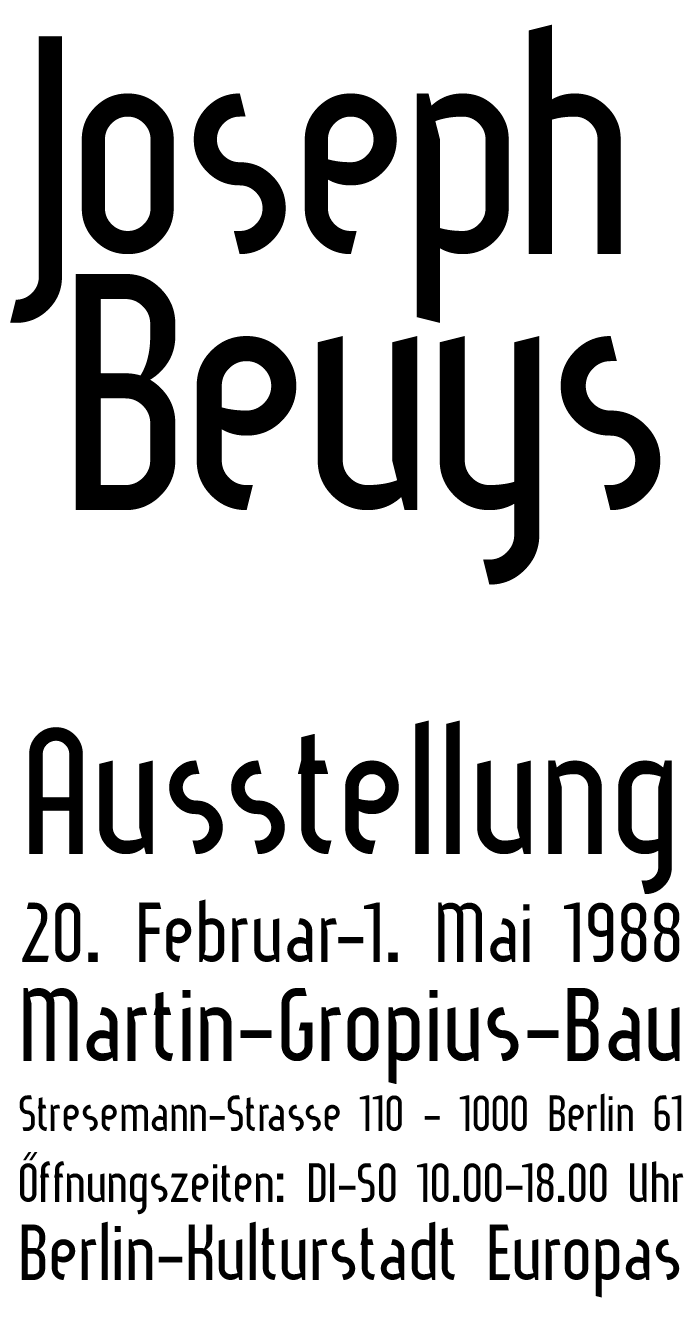
Simplex Display
A fitting tribute to Joseph Beuys. Love that backwards leaning s.
Thank you very much! I've actually been to that exhibition when I was 16... ;-)